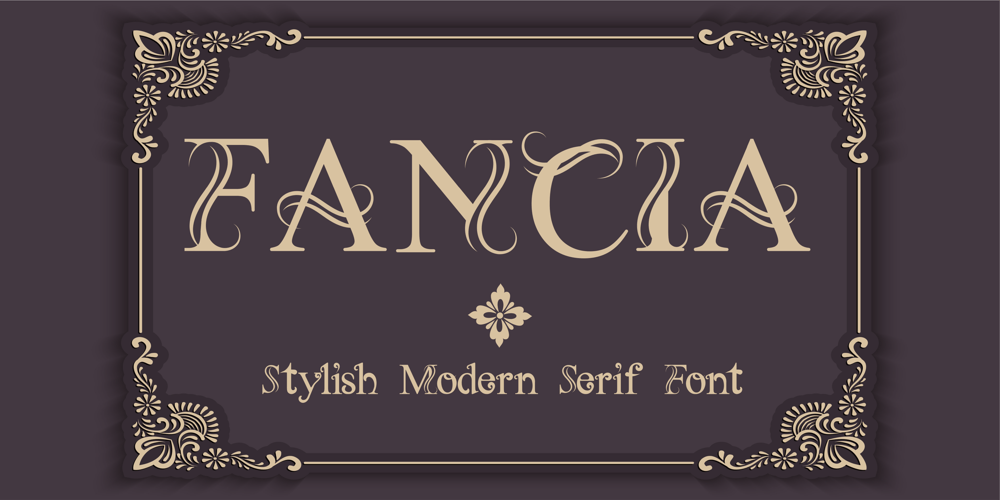
Fancia Font Family was designed by El Mehdi CHOUYOUKH and published by Mchcrafter. Fancia contains 1 styles and family package options. Fancia is a bold, detailed and assertive serif font. This font is imposing and features uniquely shaped letters, and as a result, it will easily match a wide range of creations that require a distinct touch.